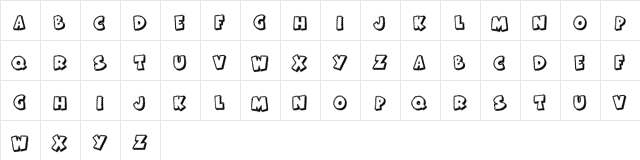
KR Frosted Cake Regular
Design Context for KR Frosted Cake Typeface
KR Frosted Cake is a composed and adaptable typeface that performs quietly and consistently across a wide range of design contexts.
Pro Tip: Use KR Frosted Cake in both headline and body roles to test its range before committing to a single application.